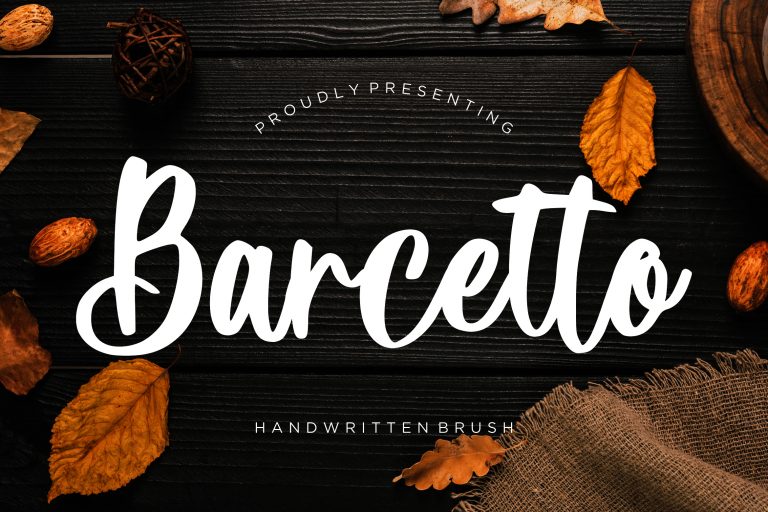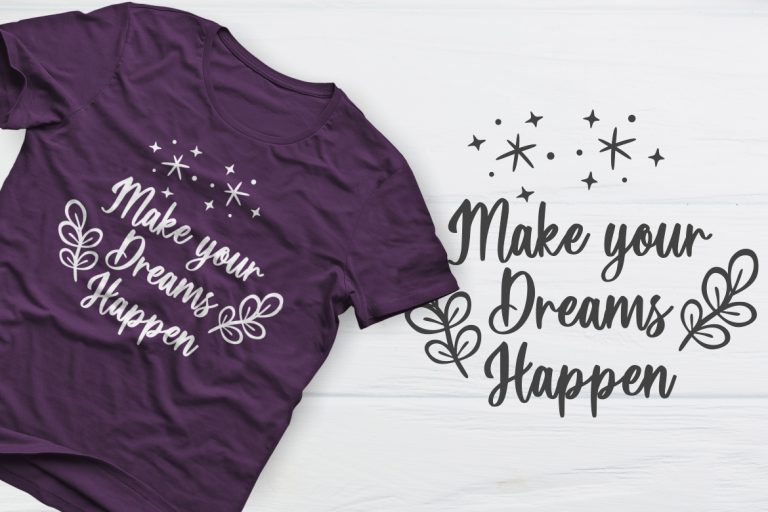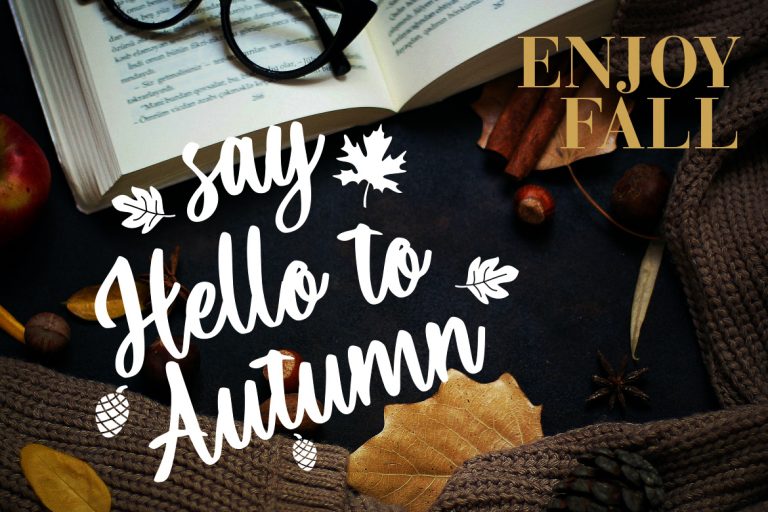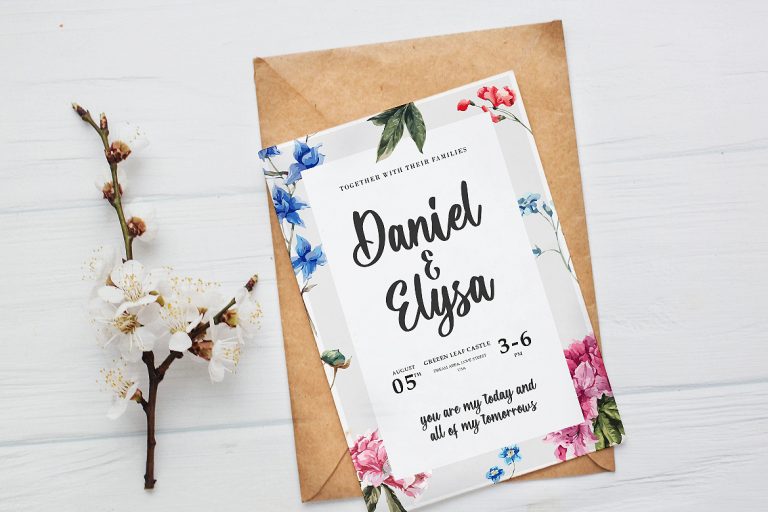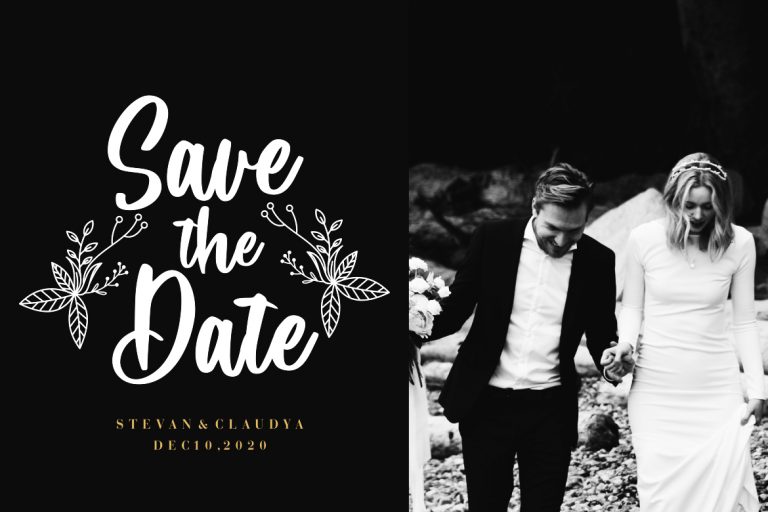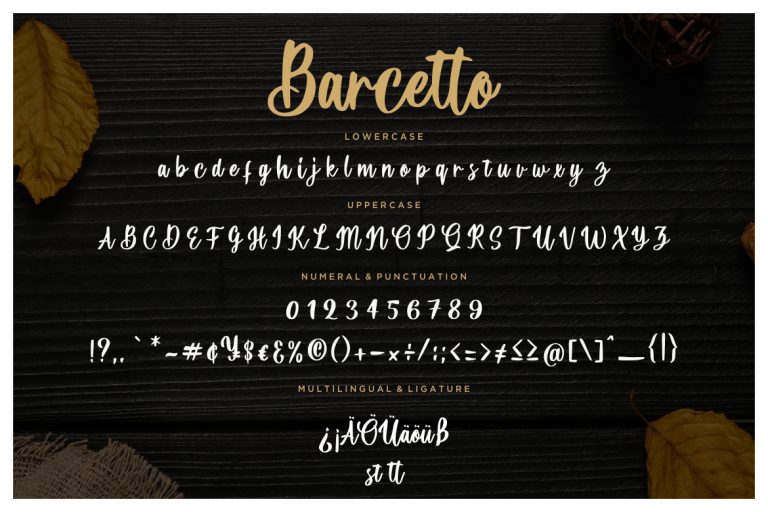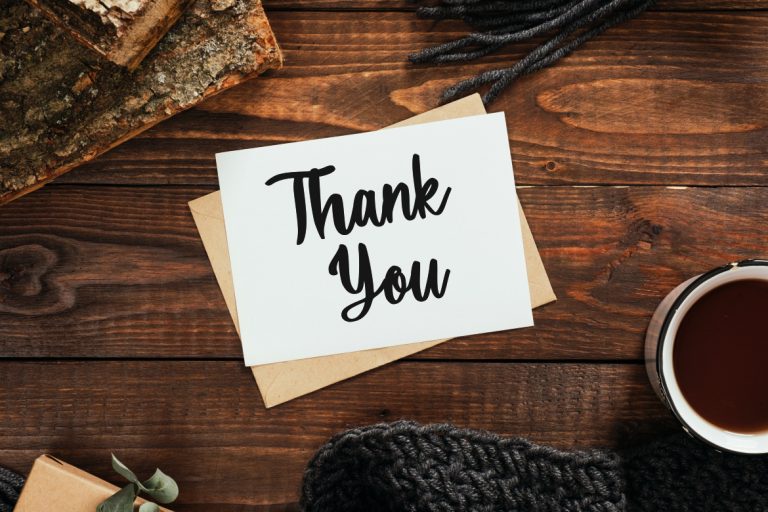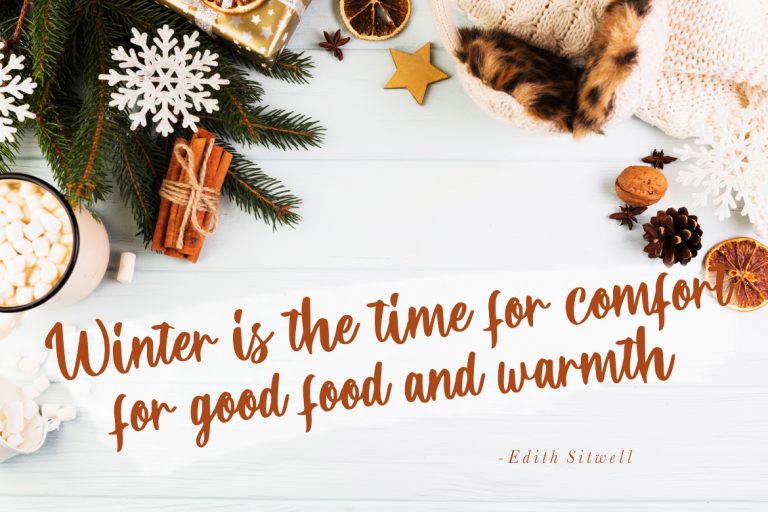
Barcetto is handwritten brush with stylish natural move.
Barcetto is perfect for branding projects, logo, wedding designs, social media posts, advertisements, product packaging, product designs, label, photography, watermark, invitation, stationery and any projects that need handwriting taste.
• Fonts include multilingual support for; ä ö ü Ä Ö Ü ß ¿ ¡
Barcetto Handwritten Brush